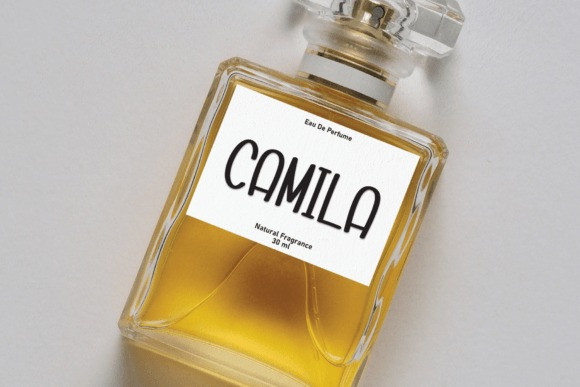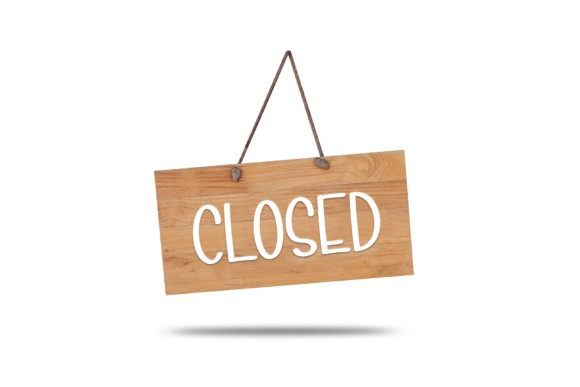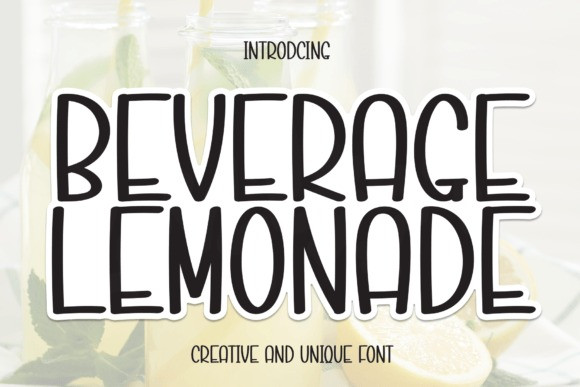
Beverage Lemonade Font
Beverage Lemonade Font, special creative products for you, our products will give you an extraordinary experience. the latest style letters are perfect for wall displays, wedding invitations, social media post logos, advertisements, product packaging, product designs, labels, photography, watermarks, invitations, stationery, and any project that requires taste handwriting.